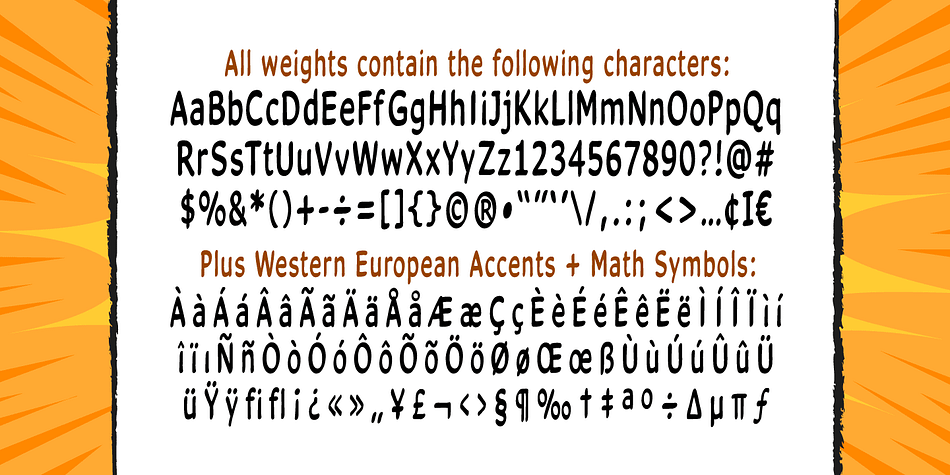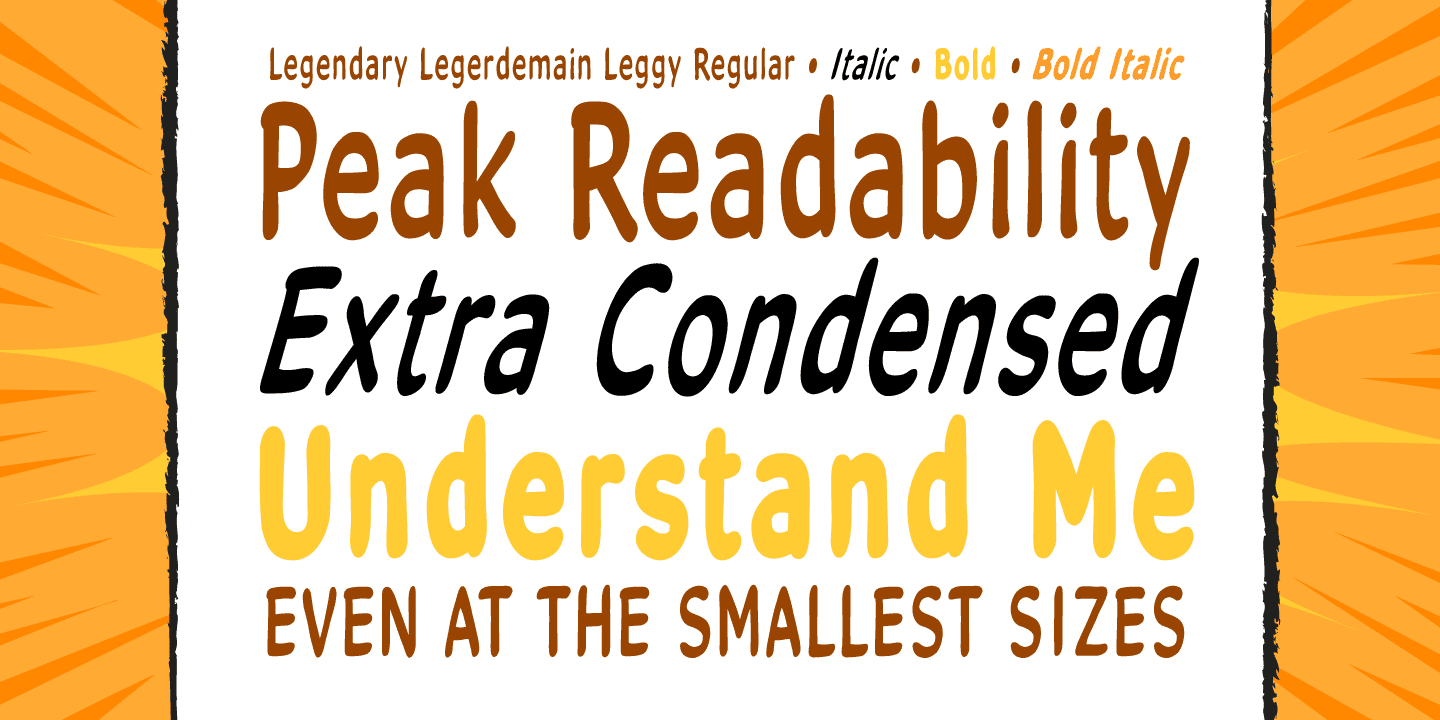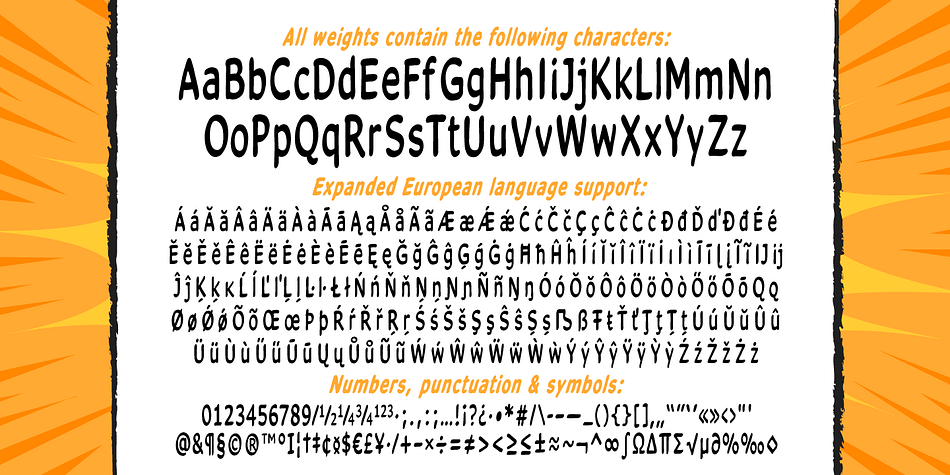
Designed by John Roshell, Legendary Legerdemain Leggy is a hand drawn font family. This typeface has four styles and was published by Comicraft.
Legendary Legerdemain’s lovely assistant, Leggy is just that—she’s tall, dazzlingly attractive in her tight-fitting clothes, and has legs right up to her neck! She looks good, strikes attractive poses, and gives LL room to make magic.
Gasp as Legendary Legerdemain saws her in half! Cheer as she floats in the air! Look Away as Legendary Legerdemain makes her the target of his knife throwing act!